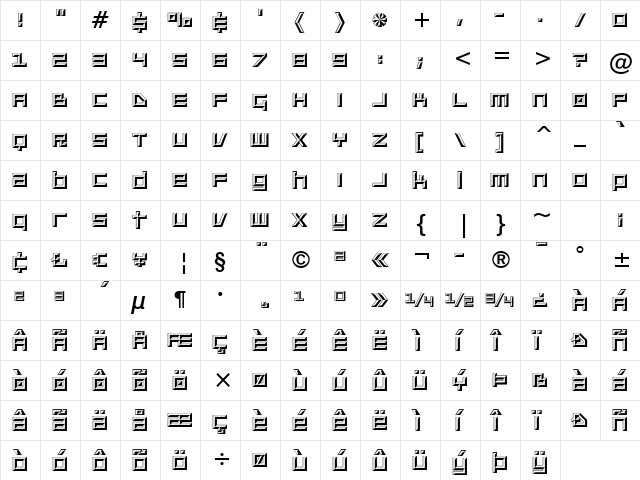
Platinum Beat BTN Chiseled Regular
Design Context for Platinum Beat BTN Chiseled Typeface
Platinum Beat BTN Chiseled is a composed and adaptable typeface that performs quietly and consistently across a wide range of design contexts.